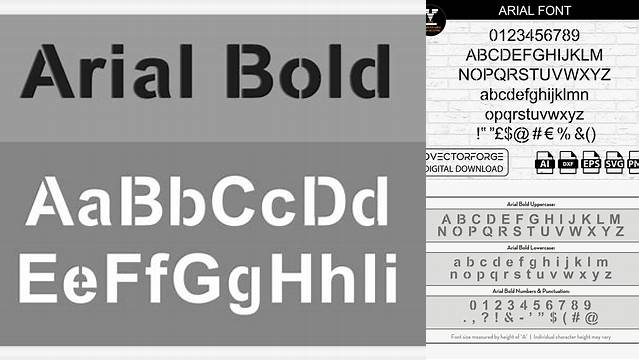
Hey guys! Are you looking for a font that combines modern legibility with a military-inspired aesthetic? Look no further than Arial Stencil! This font is a unique twist on the classic Arial typeface, giving it a distinctive, industrial vibe. In this article, we'll dive deep into everything you need to know about Arial Stencil, including its history, characteristics, uses, and where you can find it for free. Let's get started!
What is Arial Stencil Font?
Arial Stencil is a variation of the widely recognized Arial typeface. While Arial is known for its clean and straightforward design, Arial Stencil incorporates breaks in the letterforms, mimicking the appearance of characters created using a stencil. This gives the font a rugged, utilitarian feel, making it ideal for designs that need to convey strength, durability, or a sense of being purpose-built. The stencil effect is achieved by strategically removing parts of the letters, creating gaps that allow the underlying surface to show through when the stencil is applied. This design choice not only enhances the font's visual appeal but also adds a layer of practicality, as stencils were historically used for marking equipment, crates, and other items in industrial and military settings. The distinctive look of Arial Stencil makes it a popular choice for various design applications, ranging from logos and branding to posters and signage. It's a versatile font that can evoke a sense of history and functionality while still maintaining a contemporary edge. The design principles behind Arial Stencil reflect a balance between readability and visual impact. The letterforms retain the basic structure of Arial, ensuring that the text remains legible even with the added stencil effect. This is crucial for maintaining clarity in designs where the font is used for body text or other applications that require easy readability. The font's unique aesthetic also allows it to stand out in a crowded design landscape. It's a typeface that can add character and personality to any project, making it a valuable asset for designers looking to create memorable and impactful visuals. Whether used in a modern context or to evoke a sense of nostalgia, Arial Stencil is a font that can communicate a wide range of messages and emotions. Its blend of familiarity and uniqueness makes it a timeless choice for designers seeking a versatile and visually striking typeface.
History and Origin of Arial Stencil
To truly appreciate Arial Stencil, it's helpful to understand its roots. The history of Arial Stencil is intertwined with that of the original Arial font. Arial was developed in 1982 by a team at Monotype as a competitor to Helvetica. Its goal was to provide a more cost-effective alternative for IBM's laser printers. While Arial shares many similarities with Helvetica, there are subtle differences in the letterforms that distinguish the two. Arial's design aimed for enhanced readability and a more open appearance, making it a popular choice for a wide range of applications. The creation of Arial Stencil came later, building upon the foundation of the established Arial typeface. The stencil variant was likely developed to cater to design needs that required a more industrial or military aesthetic. Stencil fonts, in general, have a long history of being used for practical purposes such as labeling crates, equipment, and signage in environments where durability and legibility are paramount. The military's utilization of stencils for marking equipment and vehicles played a significant role in popularizing this style. The design of Arial Stencil reflects this heritage, evoking a sense of functionality and ruggedness. By incorporating breaks in the letterforms, the font mimics the look of characters created using physical stencils. This not only adds a visual element but also connects the font to its historical roots. The origin of Arial Stencil can also be attributed to the broader trend of font variations that emerged with the rise of digital typography. As computers and design software became more accessible, designers gained the ability to experiment with existing typefaces and create new variations that suited specific needs. Arial Stencil is a prime example of this trend, showcasing how a classic font can be adapted to create a unique and specialized design. The development of Arial Stencil also reflects the evolving needs of the design industry. As designers sought ways to create more visually compelling and impactful designs, they turned to fonts that could convey specific moods and messages. Arial Stencil, with its industrial and utilitarian aesthetic, filled a niche for designs that required a sense of strength, durability, or historical context. Its unique blend of familiarity and distinctiveness made it a valuable asset for designers looking to create memorable and effective visuals.
Key Characteristics of Arial Stencil
Let's break down the key characteristics that make Arial Stencil stand out:
- Stencil Breaks: The most defining feature is the intentional gaps in the letterforms, mimicking the look of stenciled characters.
- Clean and Legible: Despite the stencil effect, Arial Stencil maintains a high level of readability, thanks to its foundation in the well-designed Arial typeface.
- Industrial Aesthetic: It evokes a sense of ruggedness, functionality, and utilitarianism, making it suitable for designs that need to convey strength and durability.
- Versatile: It can be used in a variety of design applications, from logos and branding to posters and signage.
- Modern Twist on a Classic: It offers a unique take on the familiar Arial font, adding a touch of edginess and personality to any project.
- Visual Impact: The stencil effect creates a striking visual element that can help designs stand out and capture attention.
- Historical Connection: It connects to the history of stencils and their use in industrial and military settings, adding a sense of authenticity and heritage.
- Adaptability: Arial Stencil can be adapted to various design styles, from modern and minimalist to vintage and retro.
The distinct stencil breaks are strategically placed to maintain the integrity of the letterforms while creating a visually interesting effect. These breaks are carefully designed to ensure that the font remains legible and recognizable, even at smaller sizes. The clean and legible nature of Arial Stencil is a testament to its foundation in the well-designed Arial typeface. The letterforms retain the basic structure and proportions of Arial, ensuring that the text remains easy to read and understand. This is crucial for maintaining clarity in designs where the font is used for body text or other applications that require easy readability. The industrial aesthetic of Arial Stencil makes it a popular choice for designs that need to convey a sense of strength, durability, or functionality. It's a font that can evoke the feeling of being purpose-built or engineered, making it suitable for projects related to construction, manufacturing, or the military. The versatility of Arial Stencil allows it to be used in a wide range of design applications. It can be used for logos and branding, posters and signage, websites and digital interfaces, and even print materials such as brochures and flyers. Its adaptability makes it a valuable asset for designers working on diverse projects. The modern twist on a classic offered by Arial Stencil adds a touch of edginess and personality to any project. It's a font that can help designs stand out and capture attention, while still maintaining a sense of familiarity and professionalism. The visual impact of the stencil effect creates a striking element that can draw the eye and create a memorable impression. It's a font that can add visual interest to designs without being overly distracting or overwhelming.
How to Use Arial Stencil in Your Designs
So, you've got your hands on Arial Stencil (or a similar stencil font). Now what? Here are some tips on how to effectively use Arial Stencil in your designs:
- Logos and Branding: Use Arial Stencil to create a logo that conveys strength, durability, or a sense of history.
Arial Stencil: A Font for All Times
In conclusion, Arial Stencil is a versatile and distinctive font that can add a touch of industrial flair to any design. Whether you're creating a logo, poster, website, or print material, Arial Stencil can help you create a design that stands out and captures attention. Its unique combination of legibility, industrial aesthetic, and historical connection makes it a valuable asset for designers of all levels. So go ahead and give Arial Stencil a try – you might just find that it's the perfect font for your next project! Thanks for reading, guys! I hope you found this helpful.